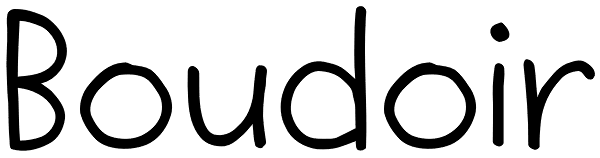
Boudoir
Come into the boudoir. This simple hand-drawn sans tries to invoke the same feelings as its name - and not to be overluscious. Boudoir is sweet and sensual like women, but it’s at the same time uncluttered and masculinely straightforward. The font...